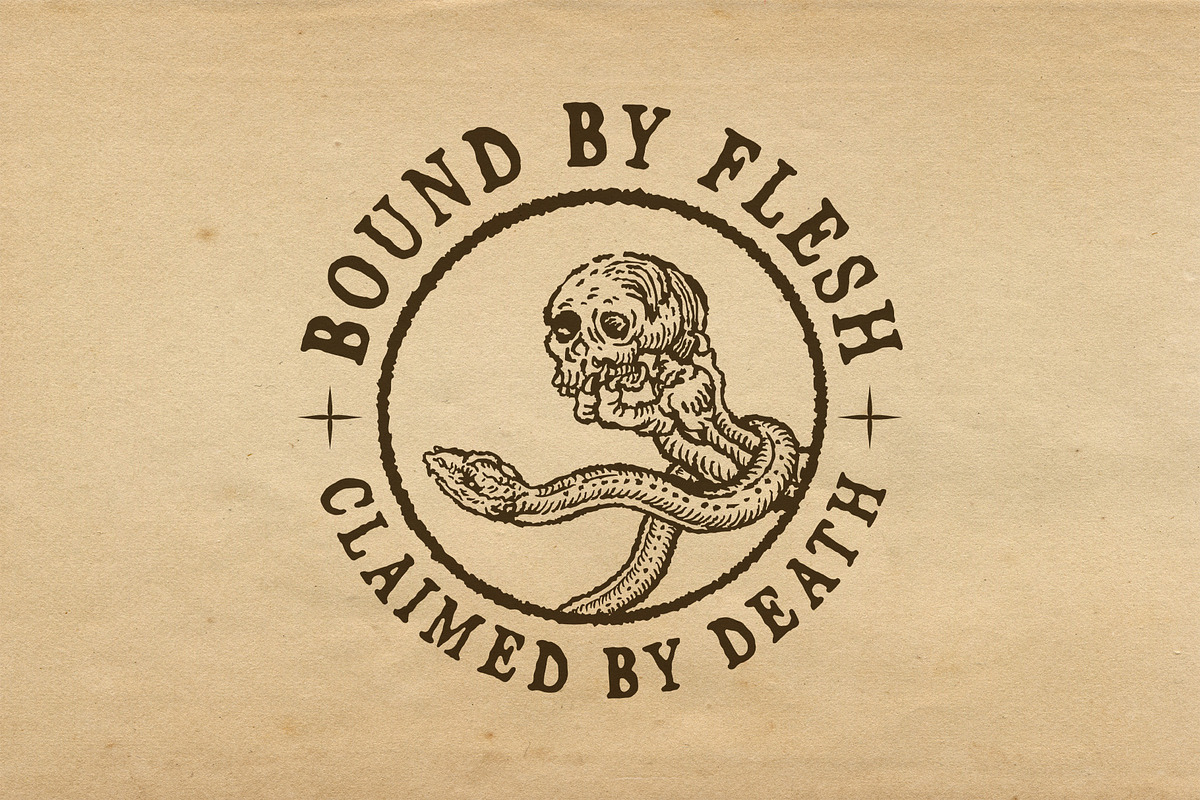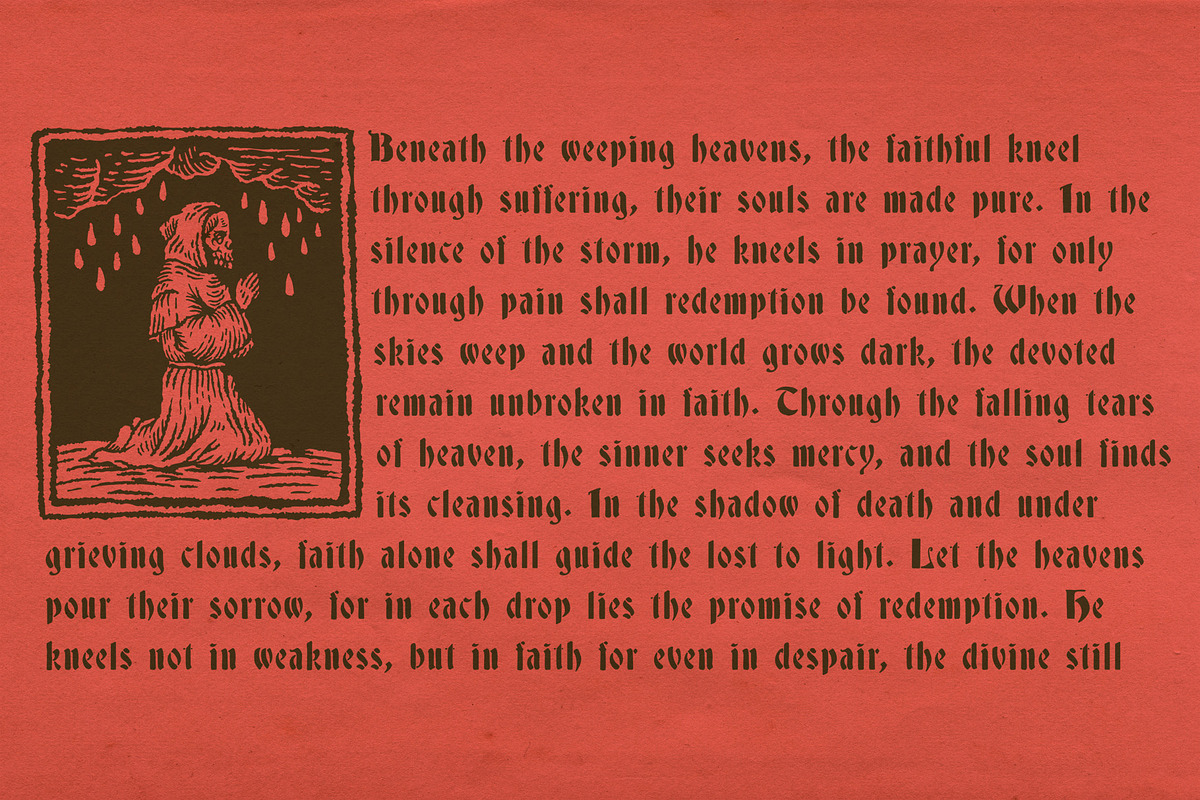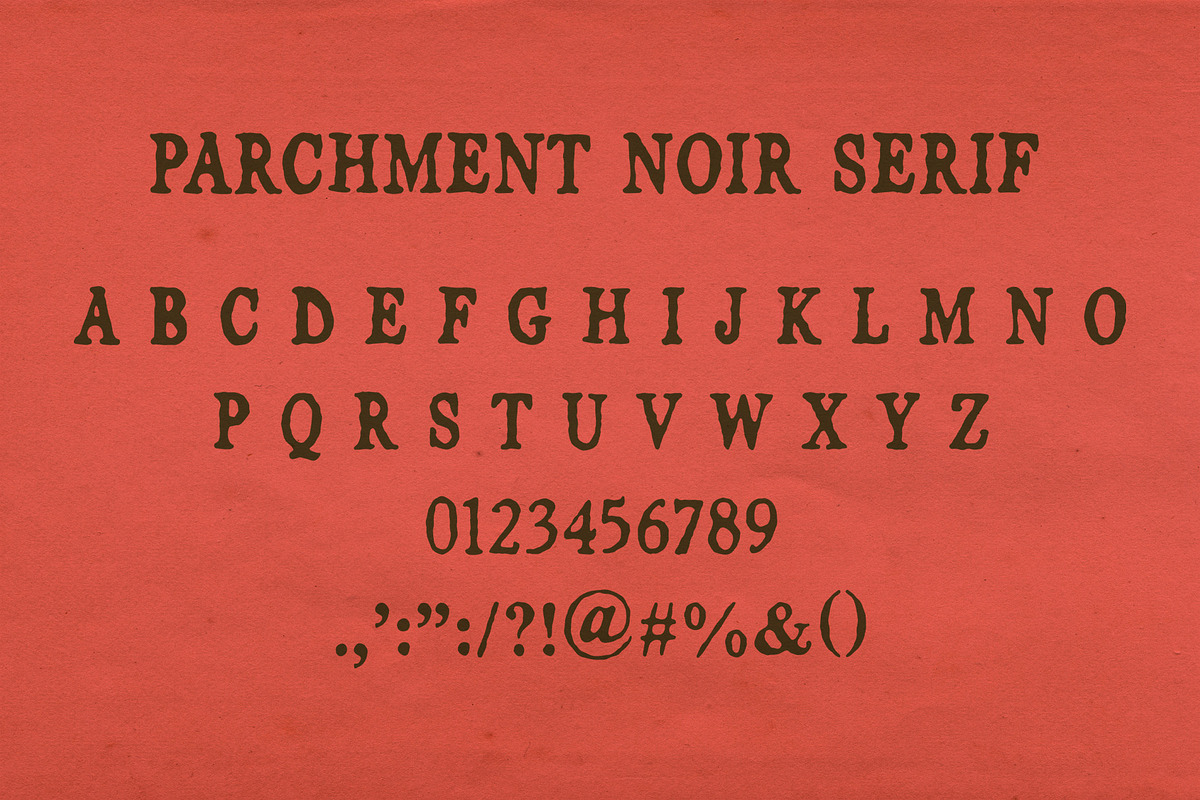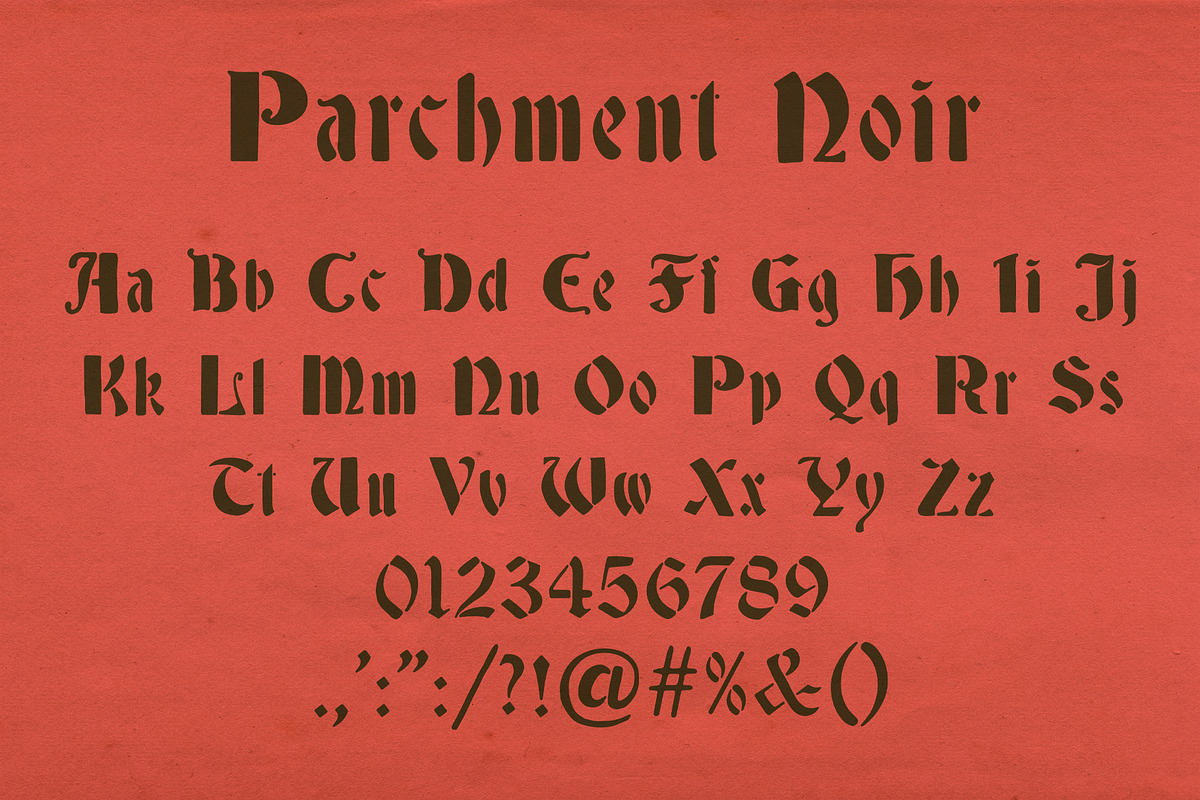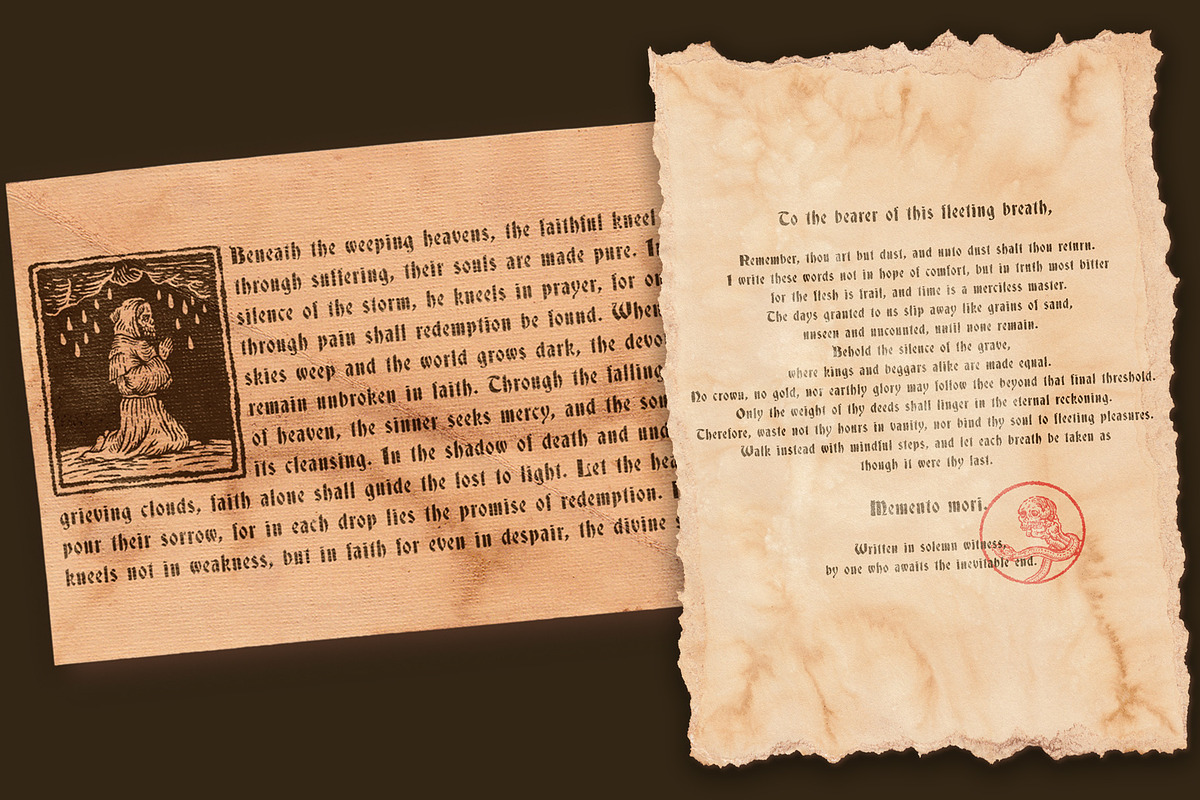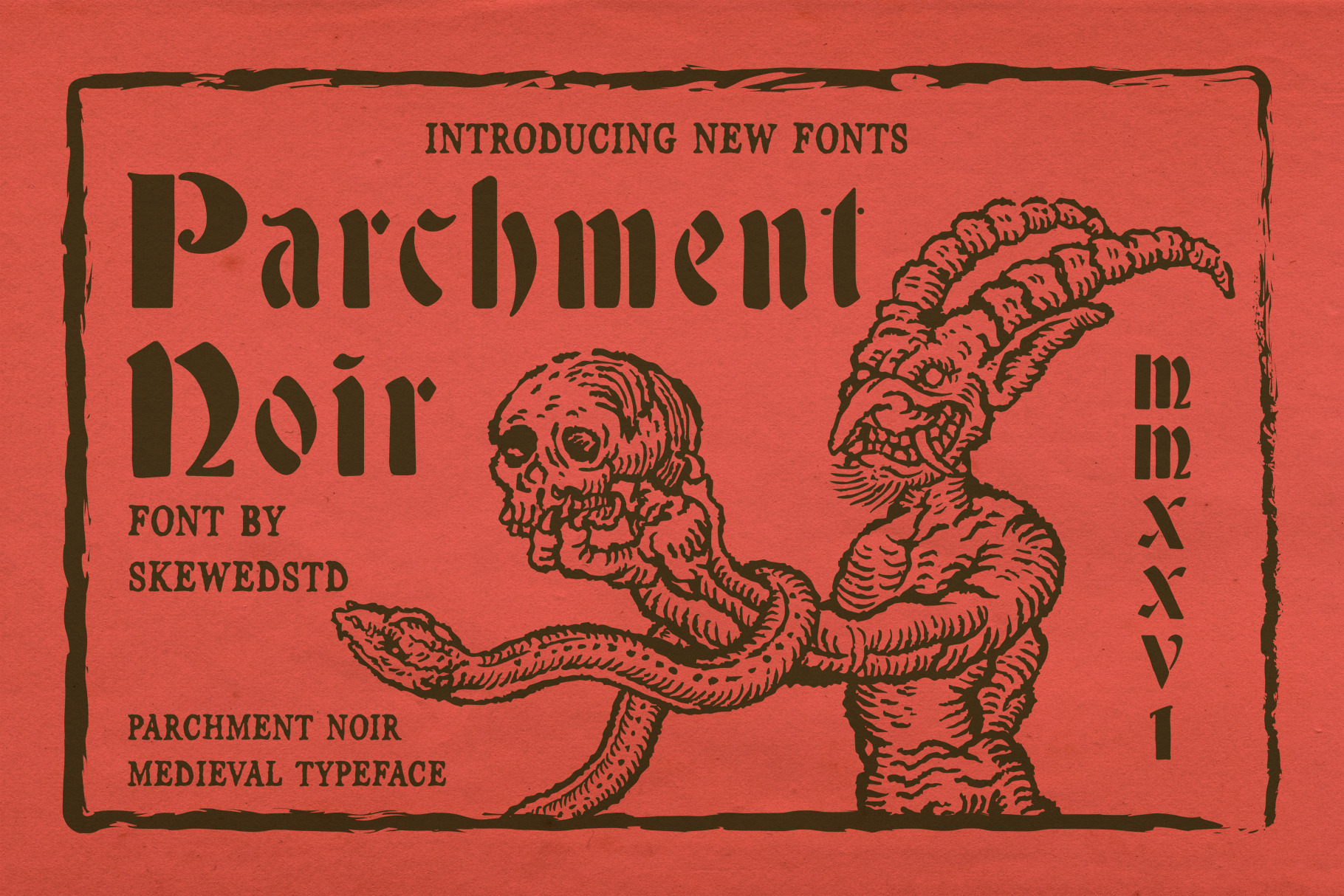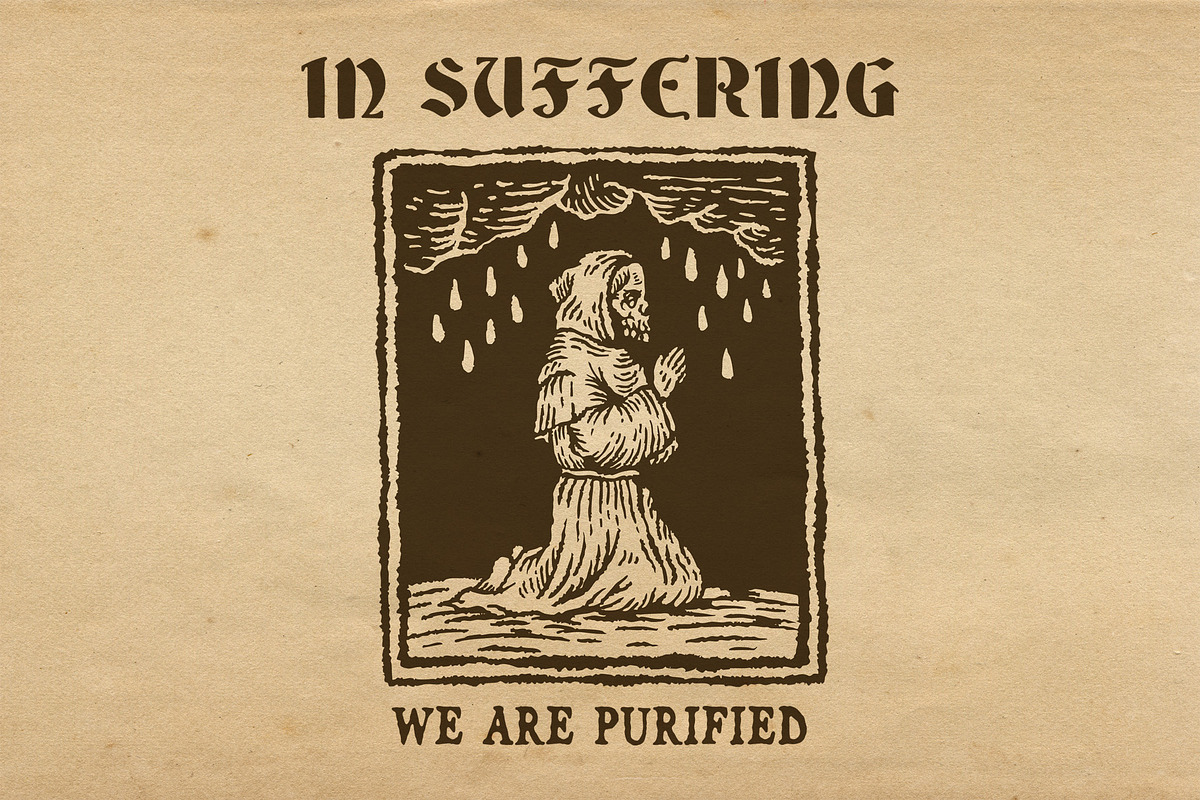
Parchment Noir Medieval Typeface
This font is a unique fusion of medieval gothic character and classic serif elegance, designed to bring both strength and sophistication into a single typeface. Inspired by ancient manuscripts, royal inscriptions, and traditional print typography, it blends sharp blackletter influences with the readability of serif forms.
The result is a versatile font that carries a historic, dark aesthetic while remaining clean and functional for modern design needs. Perfect for designers who want a bold medieval feel without sacrificing clarity and balance.
Ideal for branding, editorial layouts, logos, packaging, apparel, posters, and fantasy-themed projects. Whether you're creating a vintage identity or a refined gothic look, this font delivers timeless character with a contemporary edge.